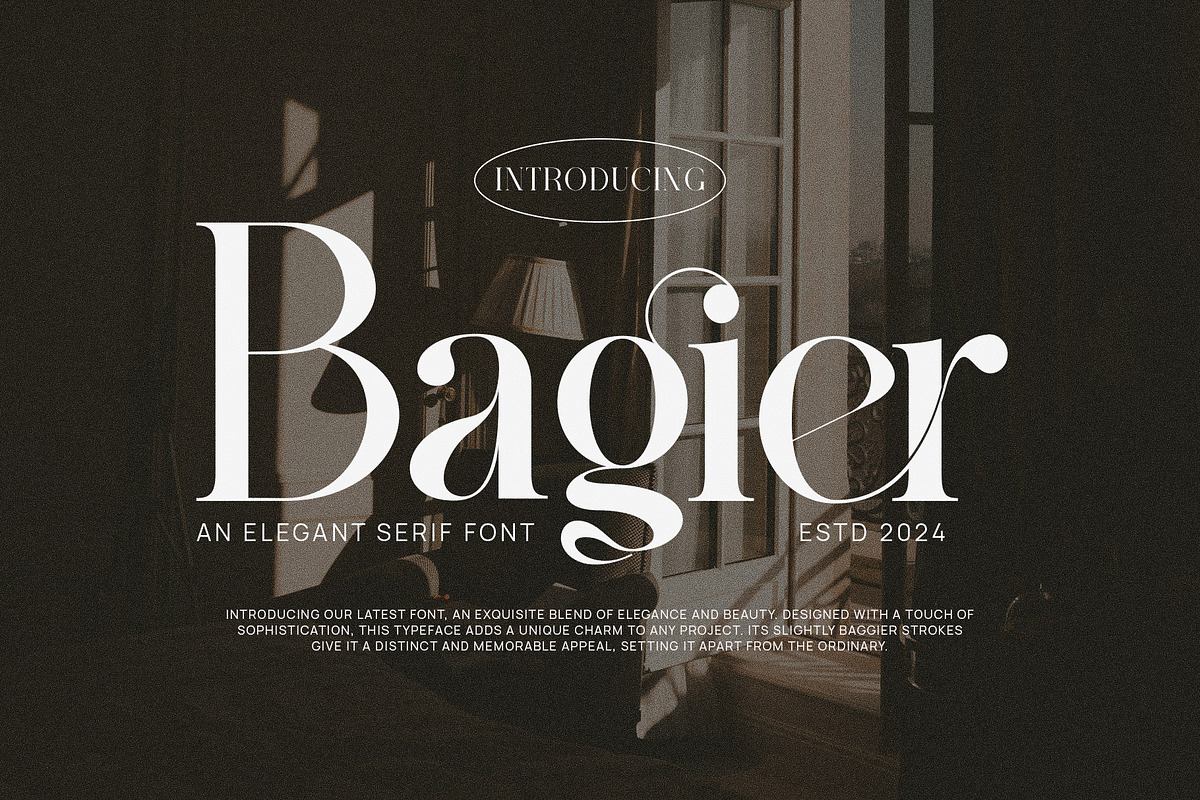
Bagier Elegant Ligature Serif Font Free Download is a sophisticated and high-fashion typeface that blends classic serif structure with luxurious ligatures and stylish flourishes. Ideal for upscale branding, wedding invitations, editorials, and luxury packaging, Bagier offers a refined aesthetic that instantly elevates any design.
Bagier Elegant Ligature Serif Font Free Download brings a harmonious balance of elegance and creativity to your typography. Its carefully crafted ligatures and graceful curves make it perfect for logos, magazine headlines, and boutique branding. Download it today and let Bagier add timeless beauty and modern finesse to your next project.